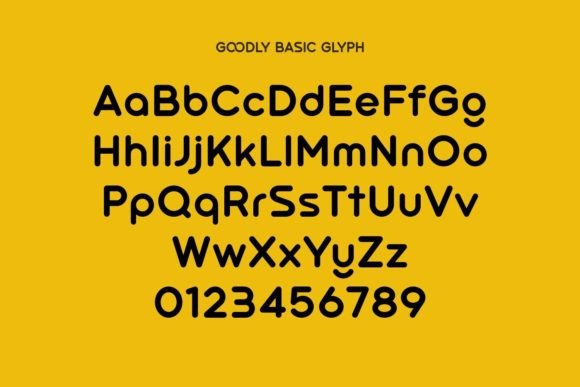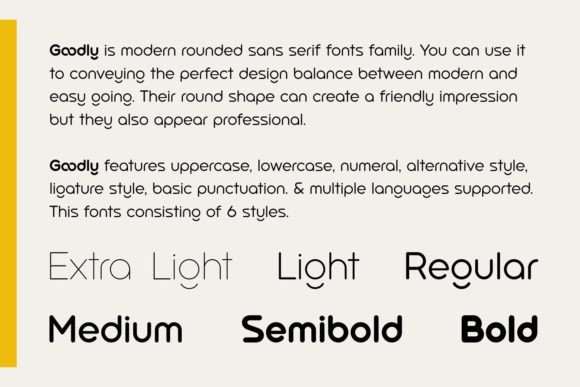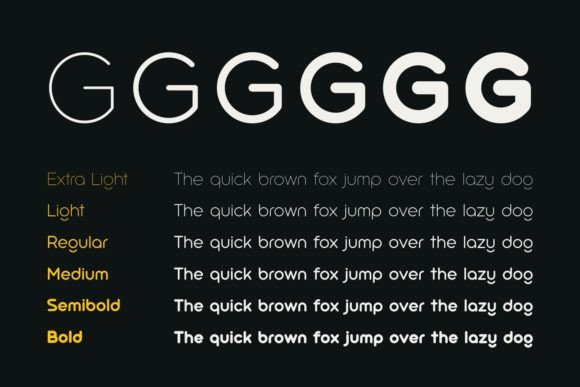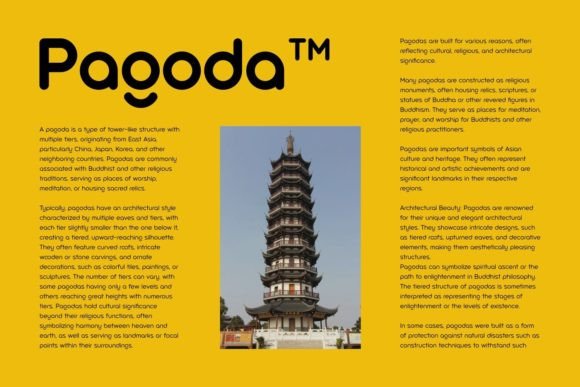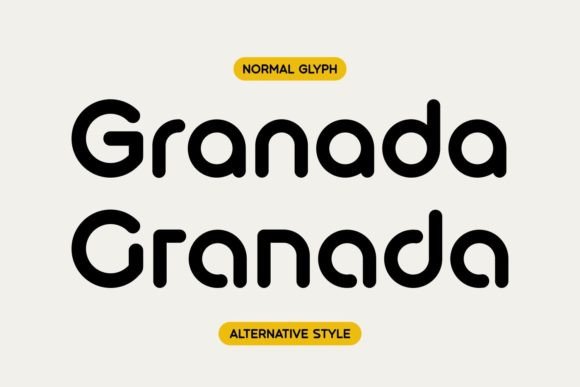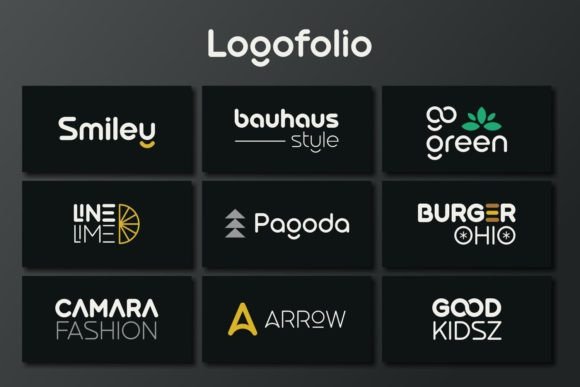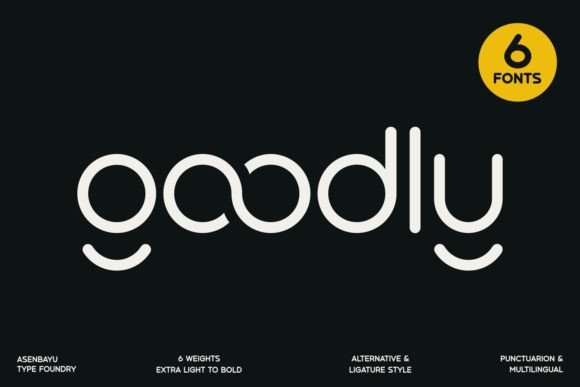
Introducing Goodly Font: The Perfect Blend of Modern and Easygoing
In the world of typography, finding the right font can make all the difference in creating a lasting impression. For designers and crafters, a font that strikes the perfect balance between modern and easygoing can be a game-changer. This is where Goodly Font comes in – a modern rounded sans serif font family that is sure to elevate your design game.
What is Goodly Font?
Goodly Font is a carefully crafted font family consisting of 6 weights, designed to provide a versatile and flexible typographic solution. Its rounded shape gives it a friendly and approachable feel, while its clean lines and modern aesthetic ensure it remains professional. This unique blend of characteristics makes Goodly Font an excellent choice for a wide range of design applications.
Key Features of Goodly Font
- Modern Rounded Sans Serif: Goodly Font boasts a sleek and contemporary design, perfect for creating a lasting impression.
- 6 Weights: With six different weights to choose from, you can tailor your typography to suit your design needs.
- Friendly and Professional: The rounded shape of Goodly Font creates a friendly impression, while its clean lines ensure it remains professional.
- Highly Versatile: Goodly Font is suitable for a wide range of design applications, from packaging labels to logos, posters, and more.
Use Cases for Goodly Font
Goodly Font’s versatility makes it an excellent choice for various design projects. Here are some of the top use cases:
- Trendy Packaging Label Designs: Goodly Font’s modern aesthetic and friendly feel make it perfect for creating eye-catching packaging labels.
- Unique Logos and Branding: The font’s clean lines and rounded shape create a professional yet approachable logo that will help your brand stand out.
- Poster Designs: Goodly Font’s versatility and legibility make it an excellent choice for creating stunning posters that grab attention.
- Fashion and Beauty: The font’s modern and sleek design makes it perfect for fashion and beauty brands looking to create a lasting impression.
Benefits of Using Goodly Font
So, why choose Goodly Font for your design projects? Here are some benefits:
- Stand Out from the Crowd: Goodly Font’s unique blend of modern and easygoing characteristics will help your design stand out from the competition.
- Enhanced Legibility: The font’s clean lines and rounded shape ensure excellent legibility, making it perfect for body text and headlines.
- Flexibility: With six weights to choose from, you can tailor your typography to suit your design needs.
- Time-Saving: Goodly Font’s versatility means you can use it across multiple design projects, saving you time and effort.
| Font Name | Goodly Font |
| Author | asenbayu |
In conclusion, Goodly Font is an exceptional modern rounded sans serif font family that offers the perfect blend of modern and easygoing characteristics. Its versatility, legibility, and unique aesthetic make it an excellent choice for designers and crafters looking to elevate their design game. Whether you’re working on packaging labels, logos, posters, or fashion designs, Goodly Font is sure to help you create a lasting impression.